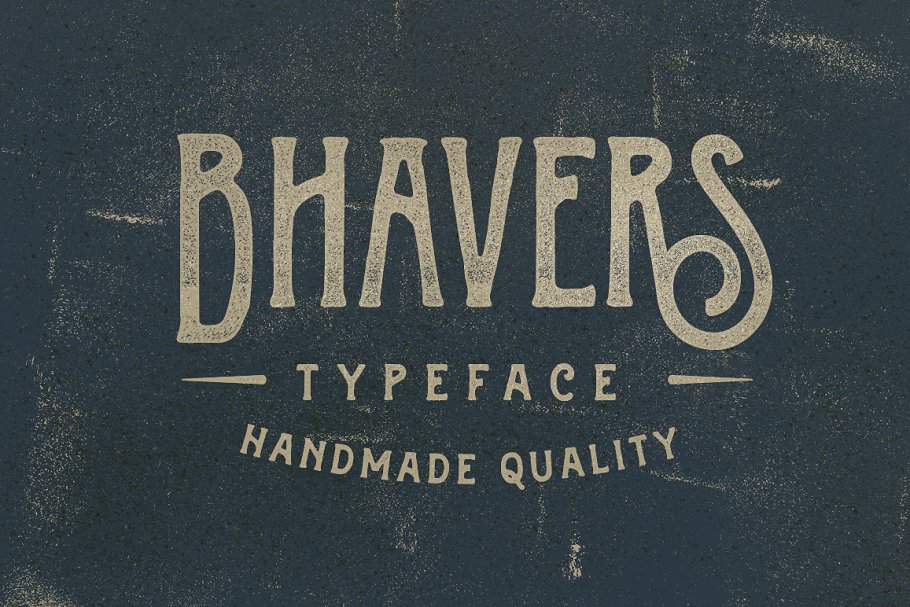
Looking to add a touch of style and uniqueness to your designs? Look no further than Bhavers Typeface, the latest creation by renowned designer Ilham Herry. This condensed version of the popular Handters typeface is sure to elevate your work to new heights.
Bhavers Typeface is a handmade typeface that exudes creativity and charm. Its distinctive hand-drawn style gives your designs a stylish edge, making them stand out from the crowd. But it doesn't stop there - this font also offers a range of OpenType features, including Stylistic Alternates, Contextual Alternate, and Discretionary Alternate. These features allow you to mix and match pairs of letters, giving you the freedom to customize your design to perfection.
Imagine the impact your designs will have with Bhavers Typeface. Its unique and captivating look will draw the attention of viewers, leaving a lasting impression. Whether you're a graphic designer, a branding expert, or simply someone looking to add a touch of creativity to their personal projects, Bhavers Typeface is the perfect tool for you.
Don't settle for ordinary fonts that blend in with the rest. Bhavers Typeface allows you to unleash your creativity and create designs that truly reflect your personality and style. Its hand-drawn charm combined with its versatile features make it a must-have for any design enthusiast.